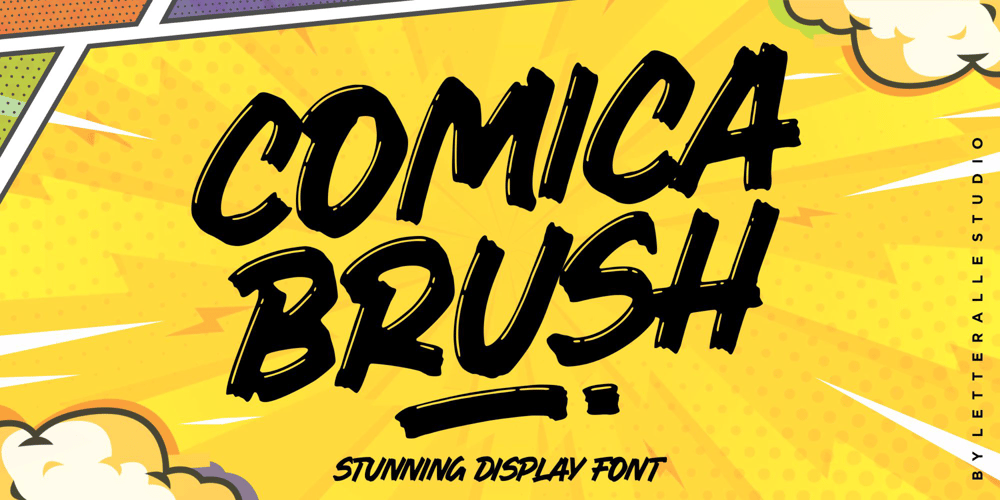
Comica Brush Font Family was designed by Annas Alam Yahya and published by Letteralle. Comica Brush contains 2 styles and family package options. Introducing, Comica Brush! An attractive, bold, and playful display font. Inspired by comic books and cartoons. This font gives a charming and strong impression.Comica Brush datang dengan dua versi (textured and solid), serta multilingual support dan underline swash. Untuk mengakses underline swash anda hanya perlu mengetik _1 – _4. So simple.Comica Brush is very suitable for various design needs such as merchandise, packaging, social media, ads, T-shirts, logos, events, and many more.Enjoy Designing.Thank you!